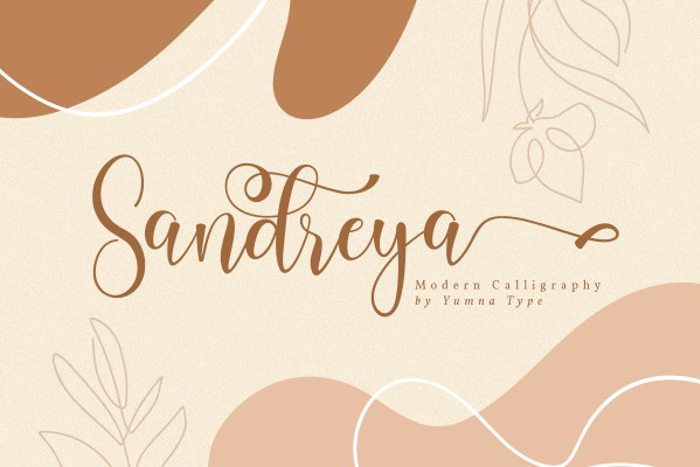
Sandreya Font
Say hello to Sandreya Script.
Sandreya is a beautiful and modern script.
It brings a beautiful and modern typeface that best used for weddings, branding, logotype, and quotes.